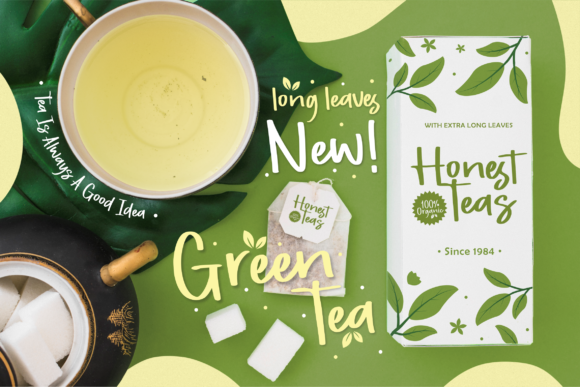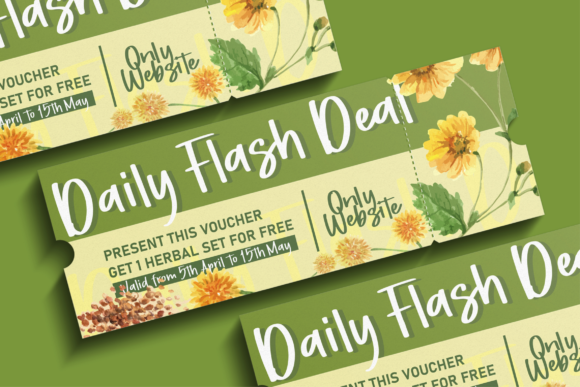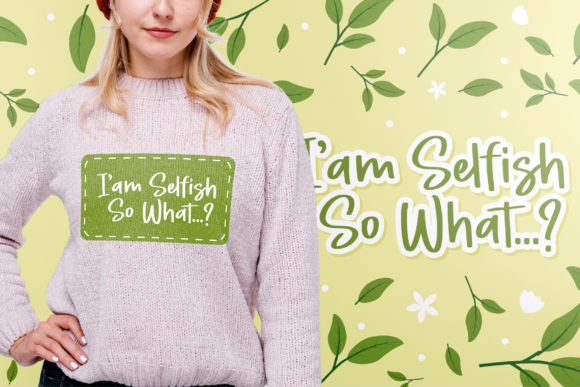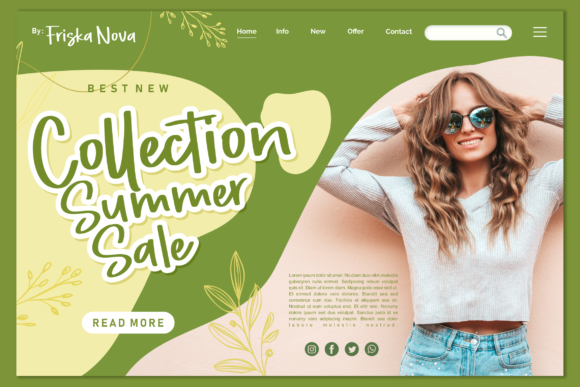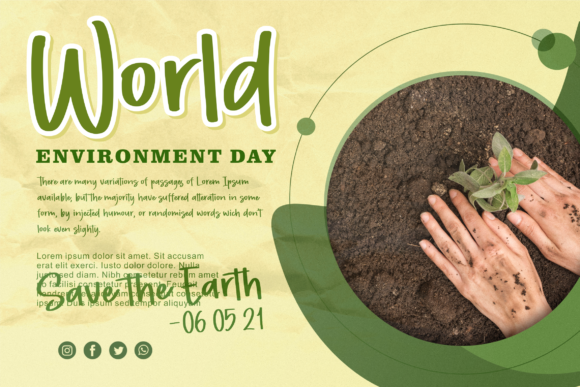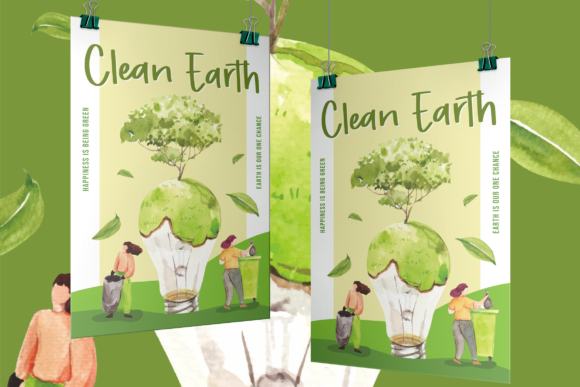
Wishbone Tea Font
About Wishbone Tea Font
Wishbone Tea is a lovely and relaxed handwritten font. It is the best choice for creating eye catching logos, branding and quotes. Every letter has a unique and beautiful touch, which will make your design come alive!